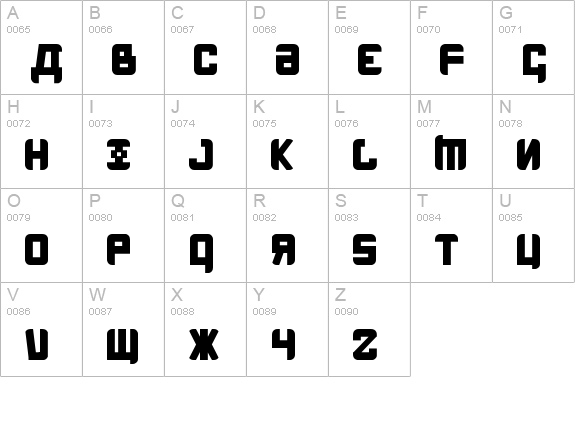
Kremlin Menshevik Bold is a strong, high-contrast variant in the Kremlin typeface family \xE2\x80\x94 well suited to headlines, attention-grabbing titles, and strong calls-to-action.
Introducing Kremlin Menshevik Bold, a striking and powerful typeface that commands attention with its bold and assertive presence. Designed with meticulous attention to detail, this font exudes confidence and strength, making it perfect for headlines, branding, and display purposes. The Kremlin Menshevik Bold font features strong and sturdy letterforms, characterized by thick yet elegant strokes that lend a sense of authority and professionalism to any design. Its bold weight adds an extra punch and ensures maximum impact, while maintaining perfect legibility even at smaller sizes. With its timeless appeal and versatile nature, the Kremlin Menshevik Bold font is a true design powerhouse, capable of enhancing any project with its bold and distinctive character. Whether used in print or digital media, this font effortlessly adds a touch of sophistication and modernity to any design. What sets the Kremlin Menshevik Bold font apart is not just its exceptional design, but also its accessibility. In an effort to empower designers and creatives, this font is freely available to download at FontsMarket.com. Now, you can elevate your projects without any constraints or limitations, effortlessly incorporating this bold and commanding typeface into your work. So why wait? Download the Kremlin Menshevik Bold font today and unleash its powerful potential in your designs. With its free availability and exceptional design, this font is a must-have for any designer or creative seeking to make a bold statement. Embrace the strength and confidence of the Kremlin Menshevik Bold font and take your designs to new heights.